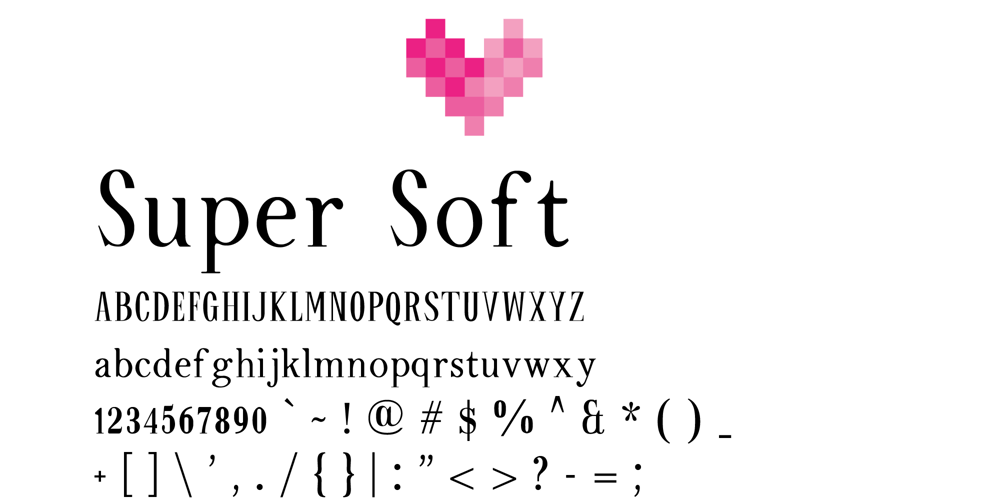
Super Soft
Super Soft font
Super Soft Font Family was designed by Yona Yang and published by Yangtype. Super Soft contains 1 styles and family package options. The feeling of touching or grazing is not rough or stiff. His temperament or attitude is not harsh but very warm. This letter gives a feeling of evolved life. Refine the meaning of sentences.